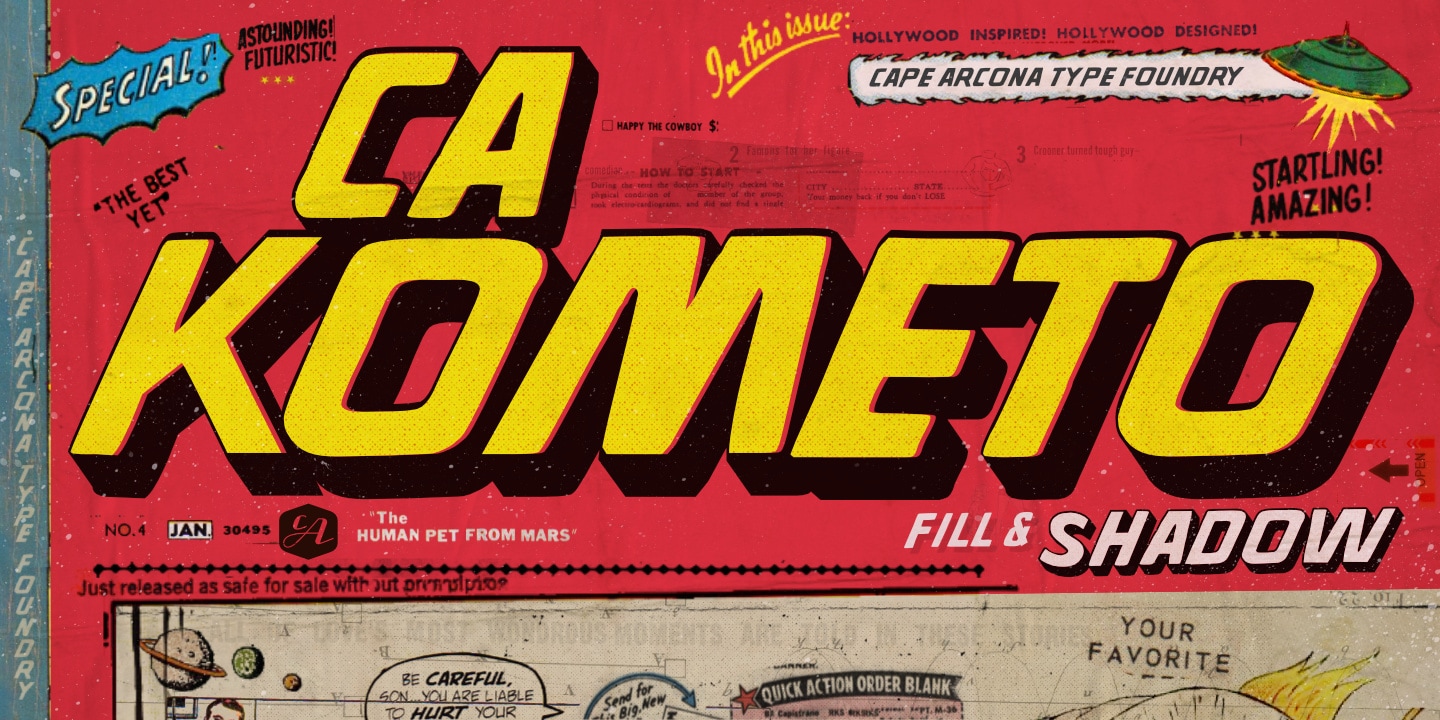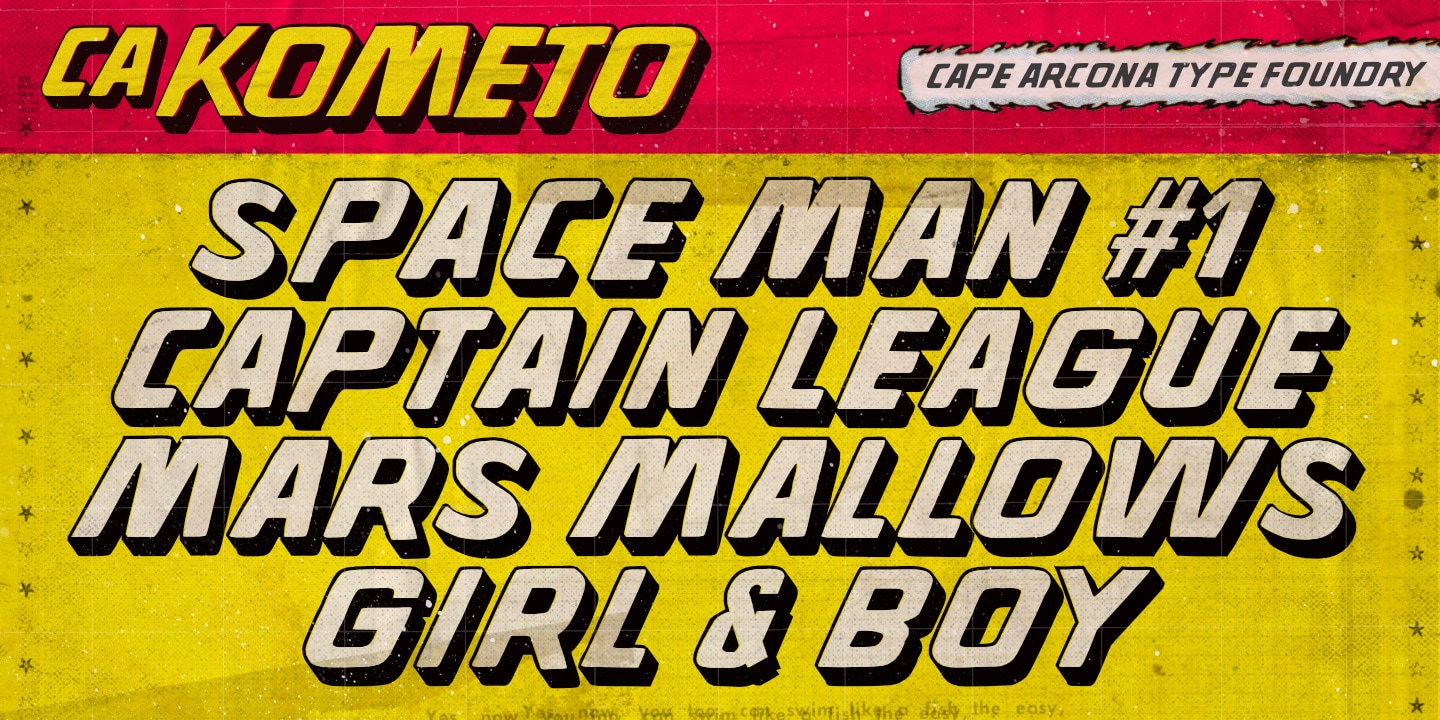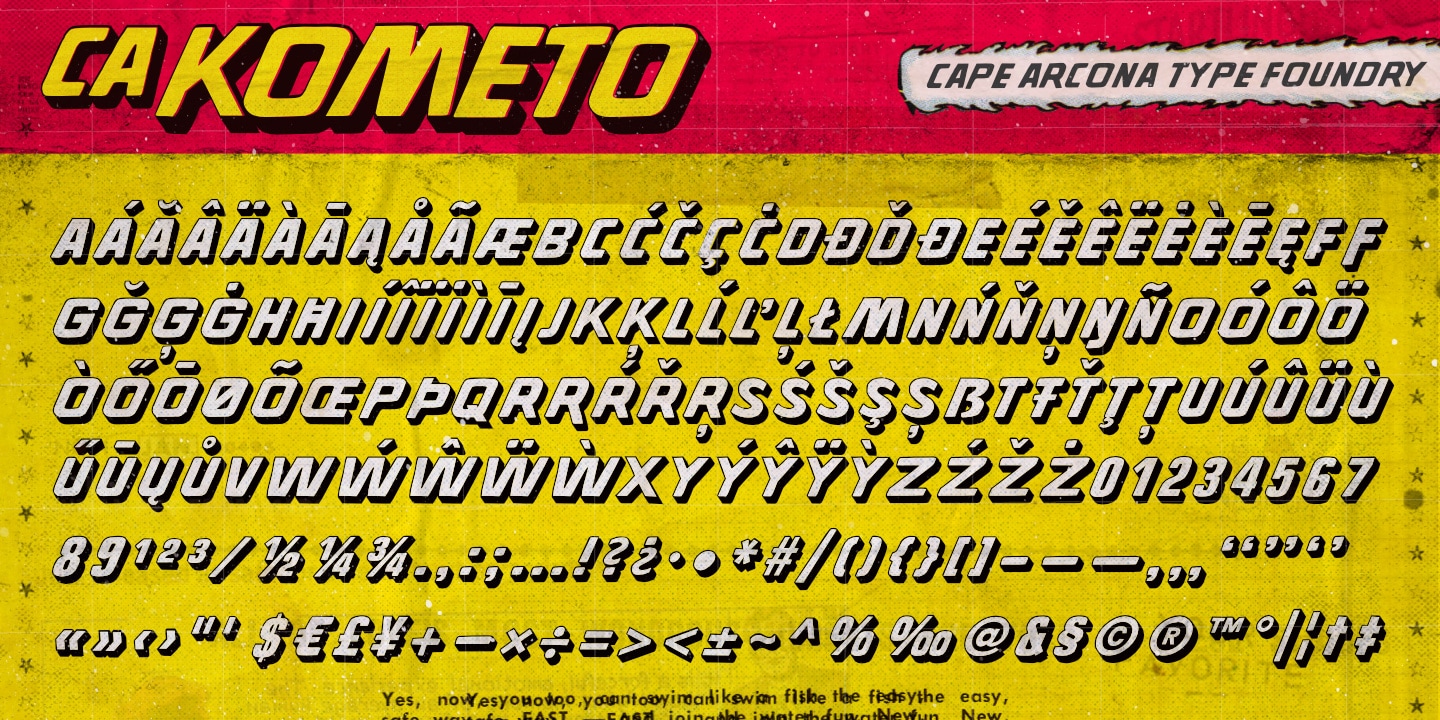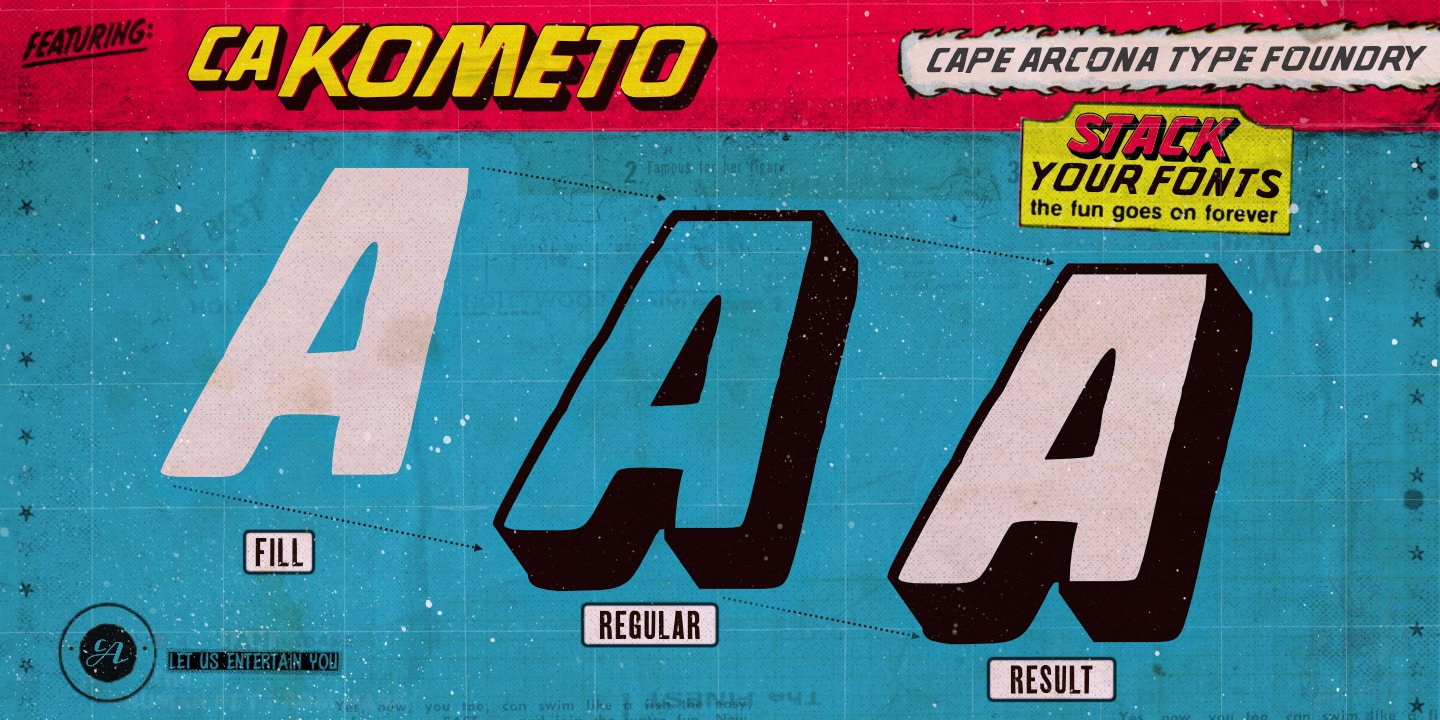
CA Kometo is an oblique headline typeface that consists of two styles, “Regular” (the Shadow) and “Fill”.
Kometo has come to save the world. A superhero typeface featuring the super powers “shadow” and “imperfection”. It comes to save you from a world of boredom. Join Kometo and experience the fun of stacking fonts!
Write something with “Fill”, copy paste it to another layer and switch to “Regular“. Maybe you will want to give it a little offset? Or you can also try to use the “Fill” style for body text, but do so at your own risk, spacing and kerning is optimized for the use with the “Regular“ style, so don’t be too harsh if the results looks more vivid than text normally does. The character set is well built, supporting Western and Central European languages.